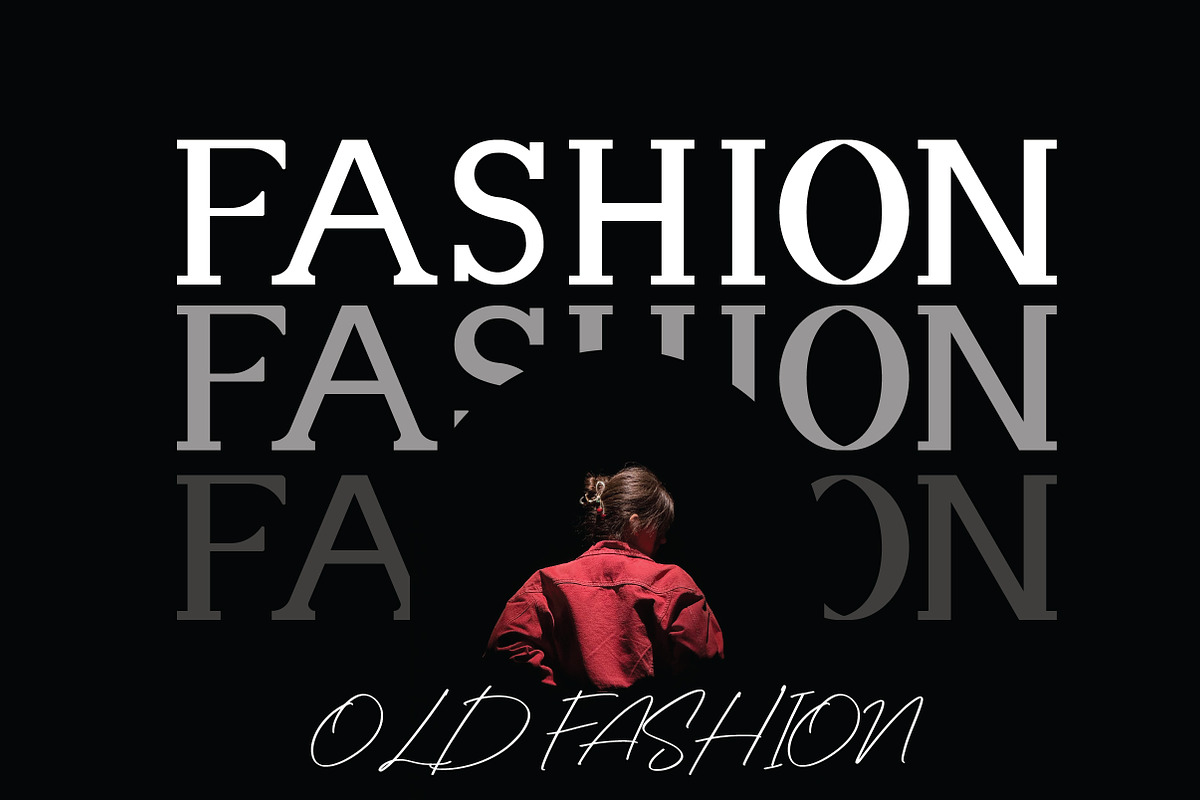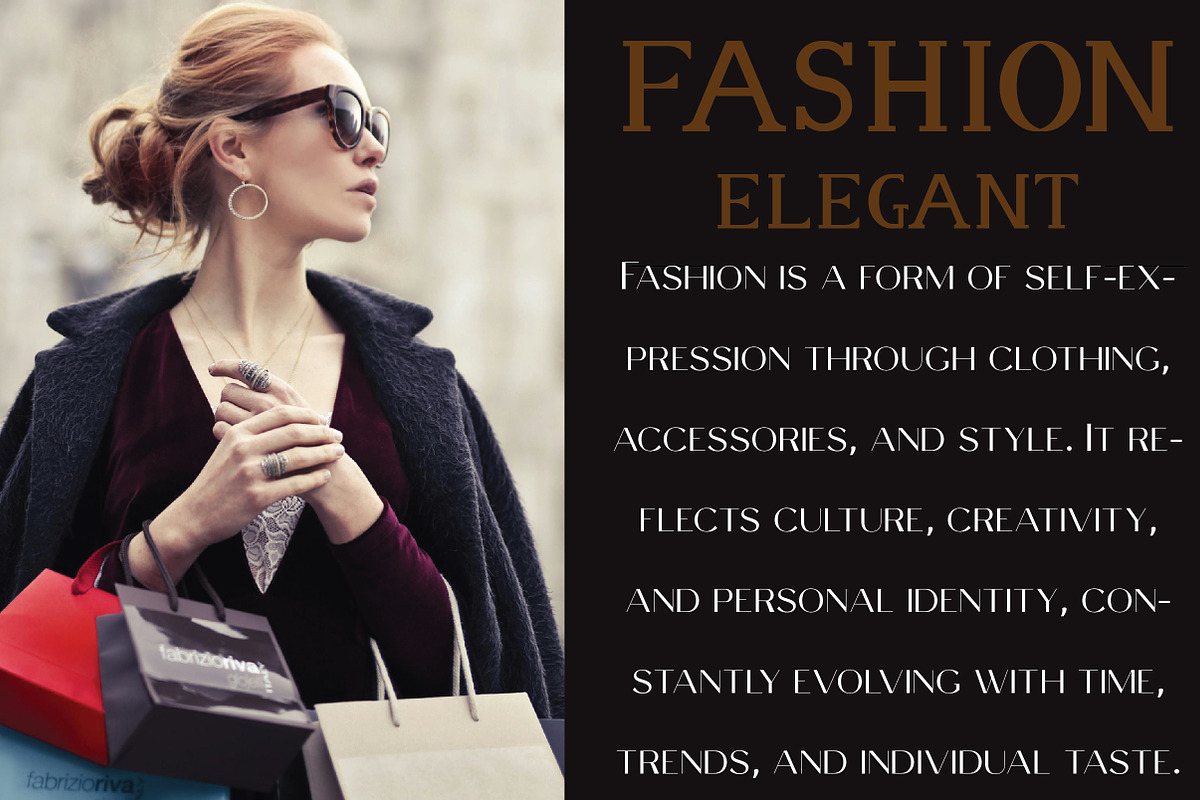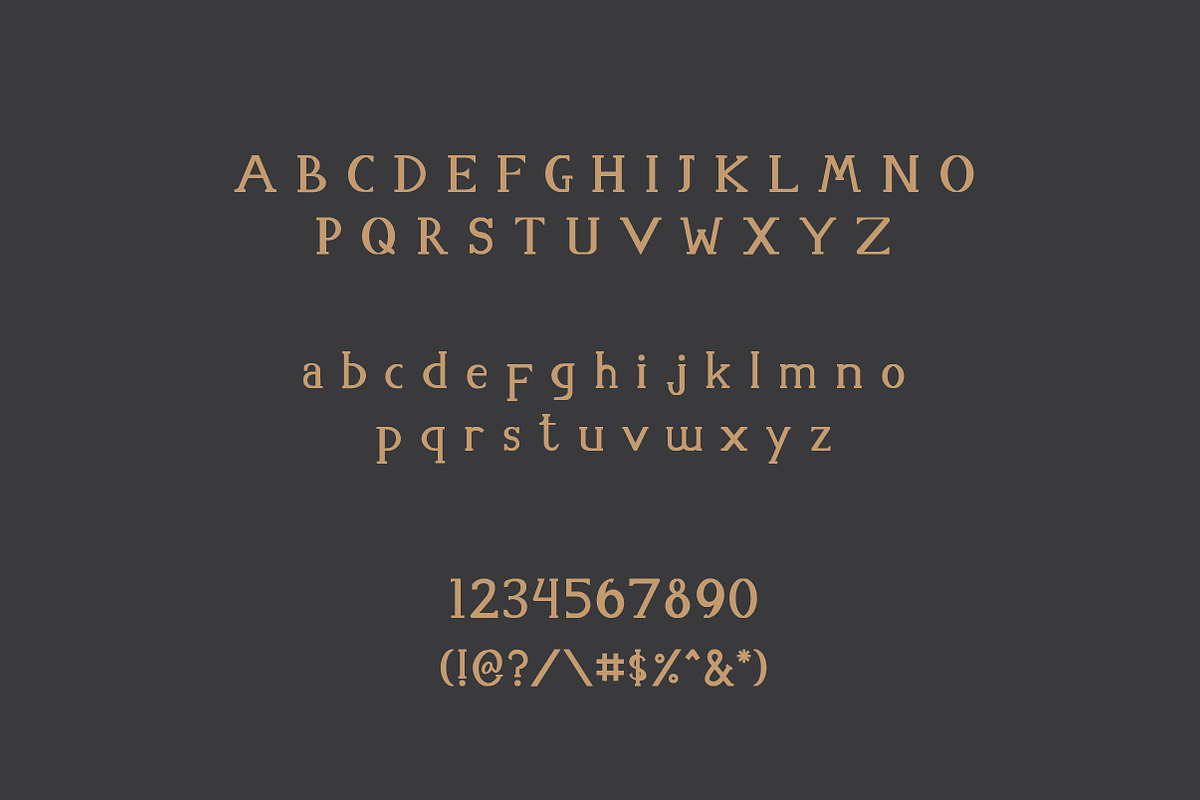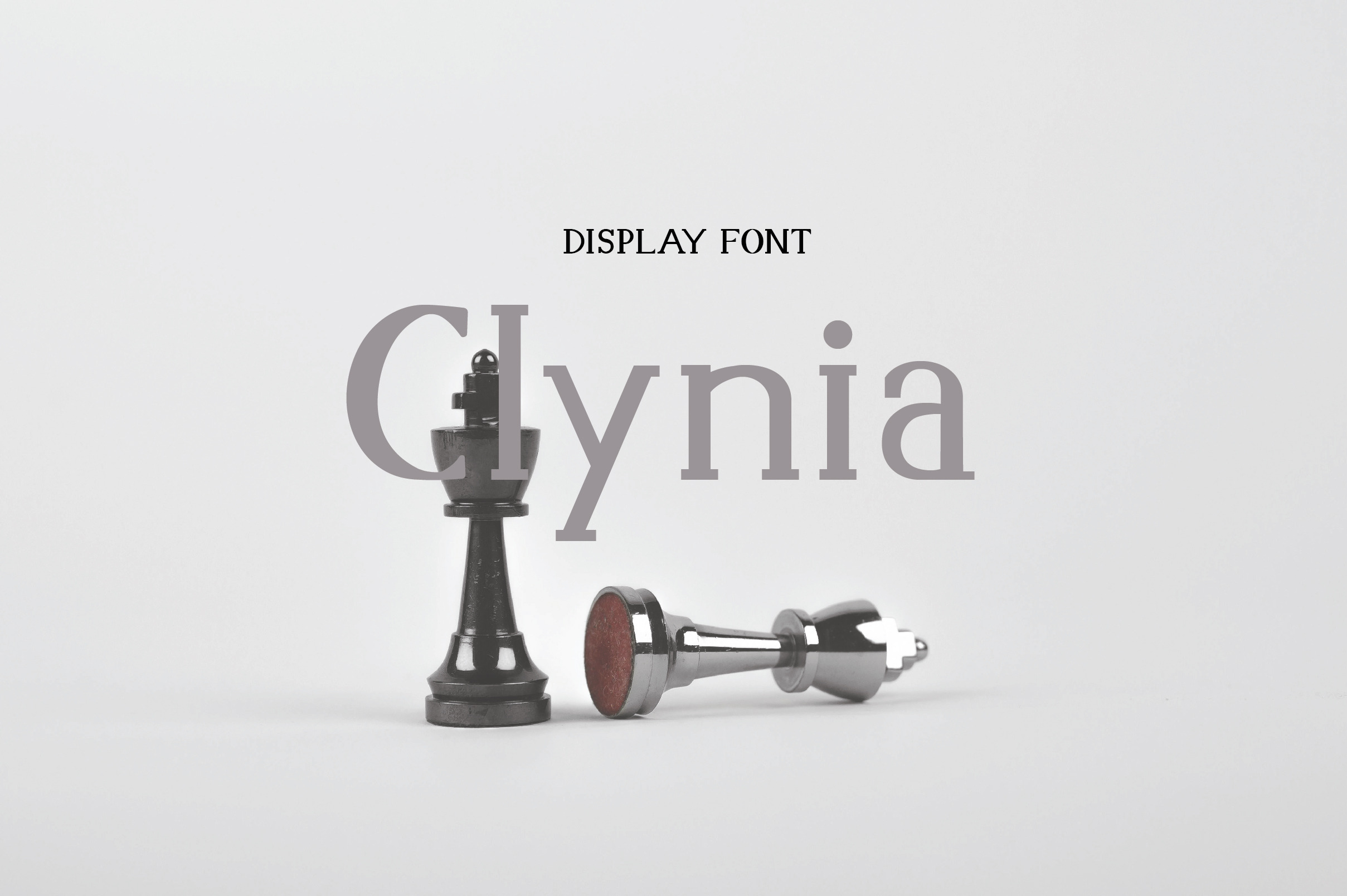
Clynia | Elegant Font Sans Serif
Clynia is a graceful and contemporary serif font designed to bring refinement and elegance to your design projects. With its clean lines and soft modern aesthetic, Clynia is ideal for branding, fashion, editorial layouts, packaging, and creative headlines.
This Regular style delivers a minimalist yet stylish appearance, making it suitable for both headlines and body text. Whether you're crafting a brand identity or working on high-end visuals, Clynia adapts beautifully to a variety of design needs.
Clynia is the perfect choice for designers who value clean sophistication and versatile design in one elegant typeface.